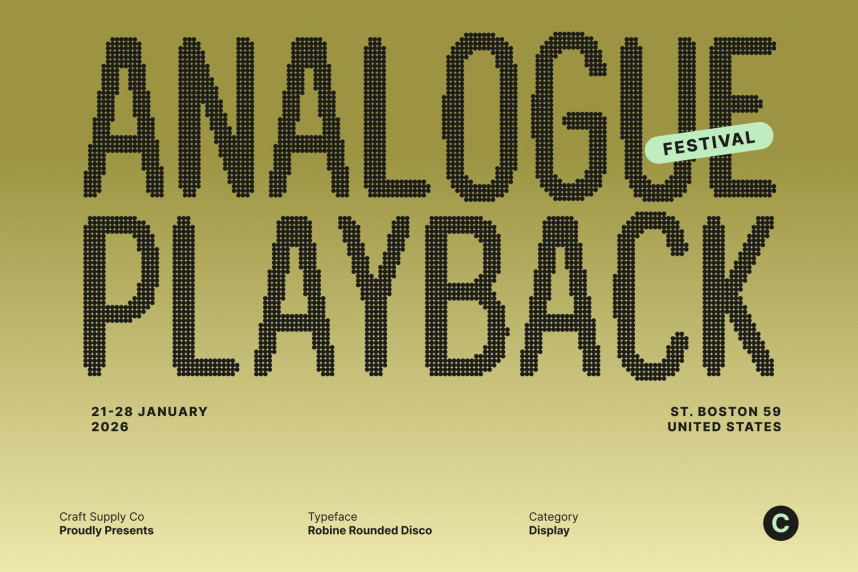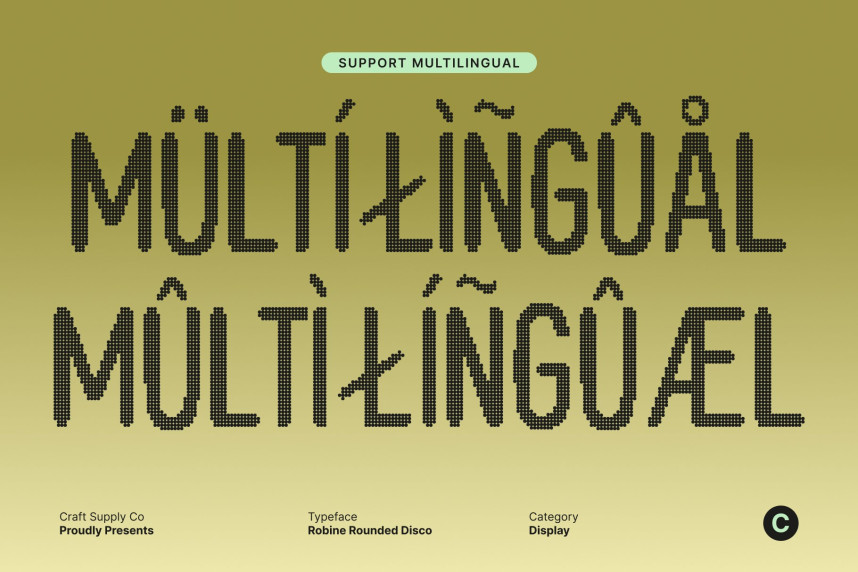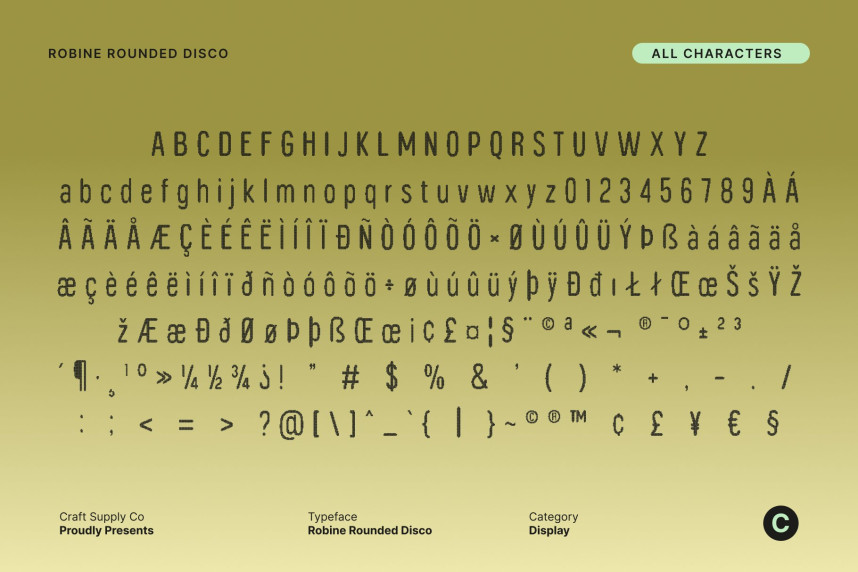
Robine Rounded Disco Font
Robine Rounded Disco Font – Embracing Softness and Friendliness with Disco Energy Soft and Approachable Glamour. This font friendliness sans serif into a sparkling visual experience. Its rounded edges and smooth curves now shine with a playful, energetic twist, evoking the rhythm of the dance floor. Every character exudes warmth while feeling lively and dynamic, perfect for designs that want to combine approachability with disco-era glamour.